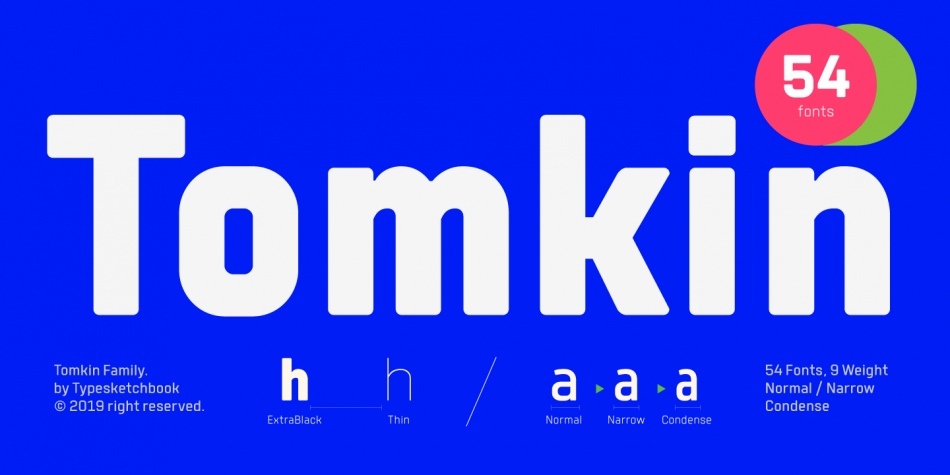
Tomkin Font
Tomkin Font is perfect for various design applications including playful children's brands, toy company packaging, educational game materials, family entertainment venues, kids' book covers, youth activity centers, fun learning apps, creative workshop signage, children's clothing labels, and whimsical party planning services. This cheerful typeface excels in projects requiring friendly energy and approachable charm that delights young audiences while maintaining readability and professional quality for family-oriented communications.
What makes Tomkin Font so exciting is its perfect balance of playful character and friendly accessibility through letterforms that feel warm and inviting without being overly childish or unprofessional. The font features gentle rounded corners that create approachable warmth, consistent proportions that ensure excellent readability for developing readers, and subtle personality touches that add charm without overwhelming the message. Its distinctive friendly character and versatile appeal make it ideal for brands serving families and children while maintaining broad audience accessibility and professional credibility.
The Tomkin Font family includes multiple weights from light to bold, along with complementary styles that enhance its versatility for different family-friendly applications. Each style maintains the font's signature approachable character while providing clear hierarchy options for educational and entertainment materials. The family also features playful decorative elements, friendly symbols, and child-appropriate ornaments that can be combined with the letterforms to create cohesive family-oriented design systems.
Whether you're developing children's products, family services, or educational communications, Tomkin Font Free Download delivers friendly typography that connects with young audiences while maintaining adult approval and professional standards. This typeface transforms routine communications into engaging experiences that feel warm, welcoming, and appropriately fun for family contexts. The font's universal appeal makes it particularly effective for educational publishers, toy companies, and family service providers targeting parents who value both fun and functionality.
Tomkin Font stands out by delivering authentic family-friendly charm that feels genuinely approachable rather than artificially cute or inappropriately juvenile for professional contexts. Its carefully balanced character and optimized readability ensure that designs feel naturally engaging while maintaining credibility with adult decision-makers. From educational materials to family entertainment branding, this font provides designers with tools to create communications that celebrate childhood wonder and demonstrate sophisticated understanding of family-friendly design through warm, accessible typography that bridges generational appeal.